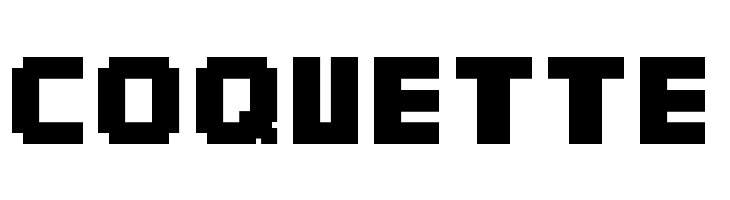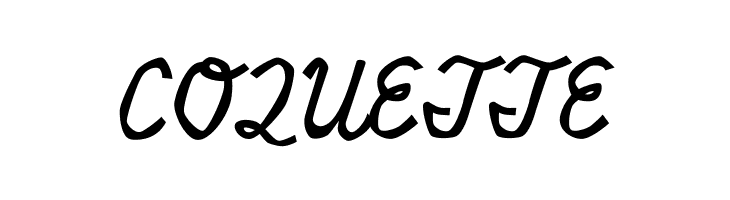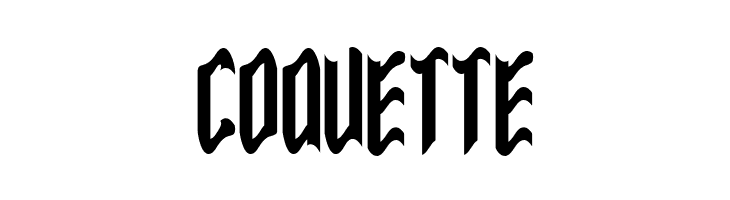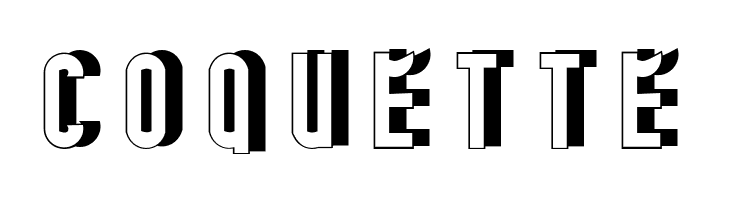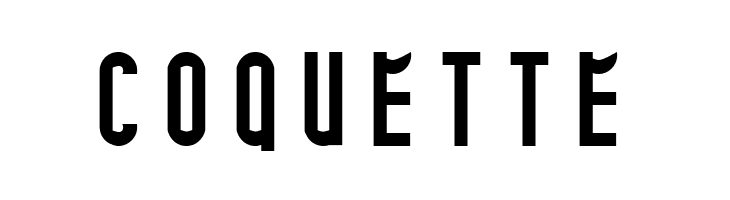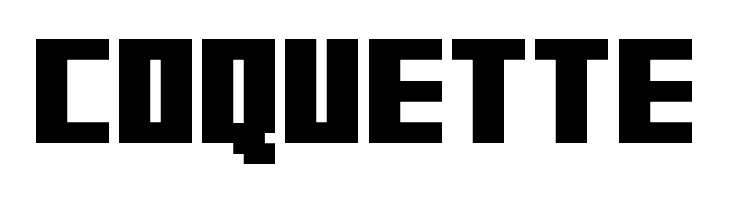
A bold, pixelated font with a retro, digital style.
A bold, dynamic script font with fluid, connected letterforms and a playful style.
A bold, geometric font with a modern and impactful design.
A bold Gothic font with sharp, angular lines and intricate detailing.
A bold, shadowed font with a three-dimensional, decorative style.